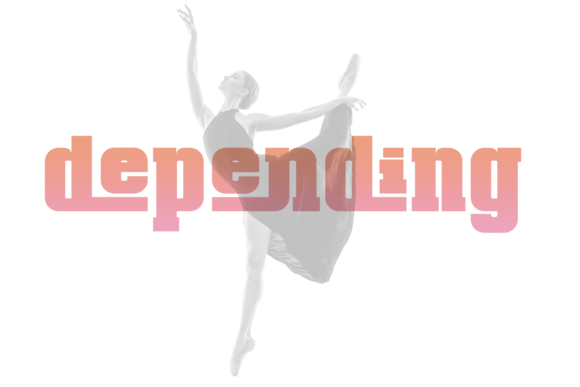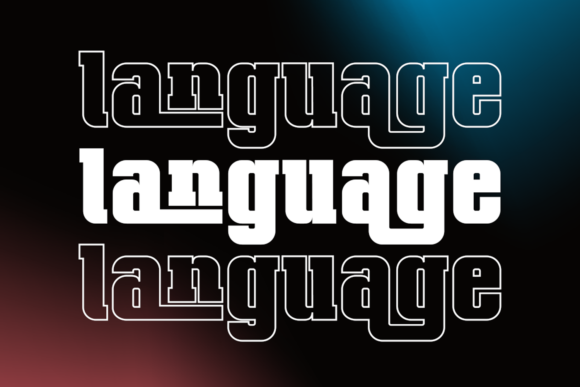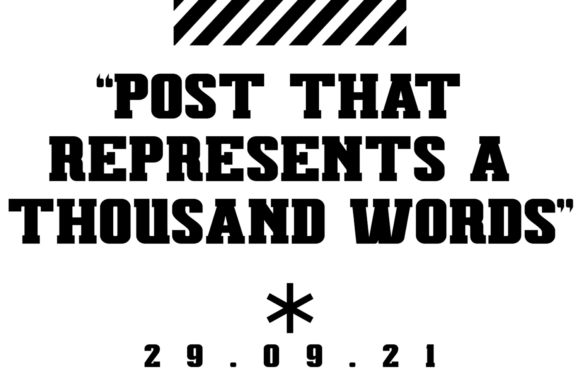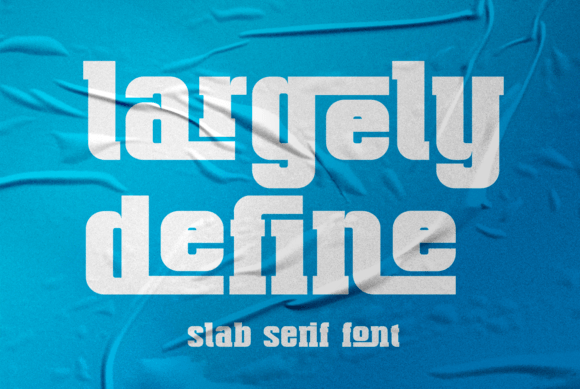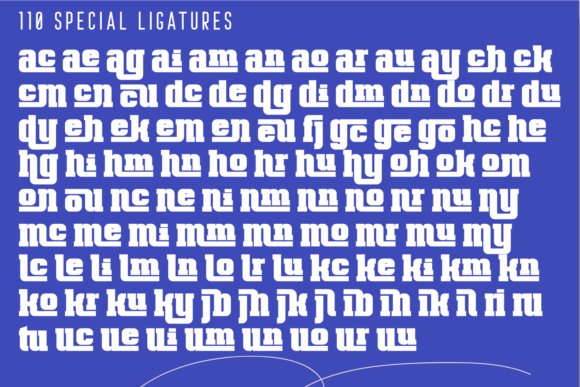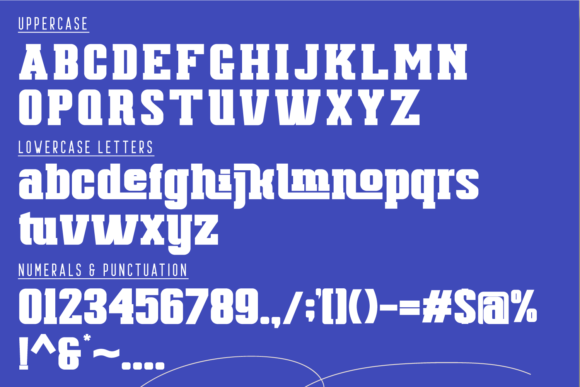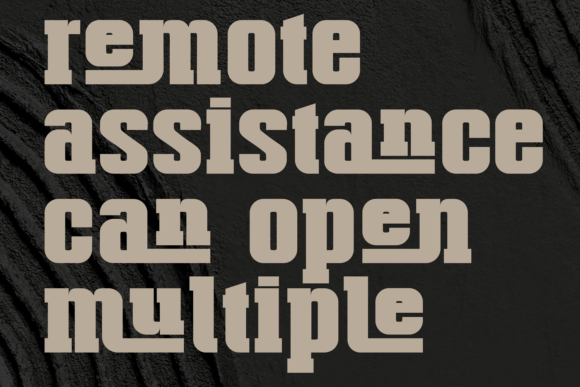
Largely Define
Largely Define: A Bold and Assertive Slab Serif Font
Largely Define is a distinctive slab serif font that stands out with its bold lines and strong presence. Moreover, this PUA-encoded typeface allows easy access to all glyphs and swashes.
Key Features of Largely Define
• Bold Design: Grabs attention with its thick letterforms.
• Assertive Look: Creates a powerful and confident impression.
• Slab Serif Structure: Features characteristic thick, rectangular serifs.
• PUA Encoding: Provides easy access to all glyphs and swashes.
• Versatile Use: Adapts to various design projects.
Ideal Uses for Largely Define
This font is particularly effective for:
• Creating strong brand identities
• Designing eye-catching posters and ads
• Crafting impactful book covers
• Developing striking web headers
• Any design requiring emphasis
When using Largely Define in your projects, consider these suggestions:
• Use for headlines to maximize its bold impact
• Experiment with different sizes to explore the font’s potential
• Create contrast by pairing with thinner fonts
• Utilize the PUA encoding to access special characters
Largely Define is an excellent choice for designers seeking bold and assertive typography. From logo designs to eye-catching posters, this font instantly adds character to your work.
Furthermore, Largely Define’s versatility allows it to shine in various styles. You can use it in vintage-inspired designs for a modern twist or in playful compositions for a strong contrast.
In conclusion, Largely Define lets you express your creativity freely. Whether you’re creating a mysterious atmosphere or aiming for a thoughtful tone, this font adapts to your needs. It works well in both nostalgic designs and modern compositions. Additionally, it can even add a bold touch to traditional holiday themes.